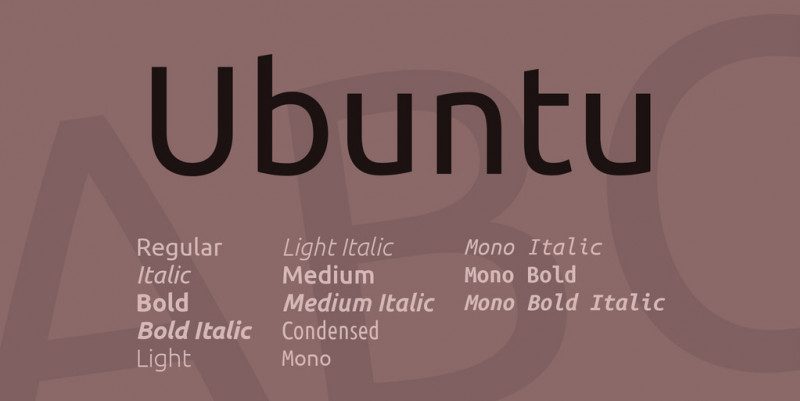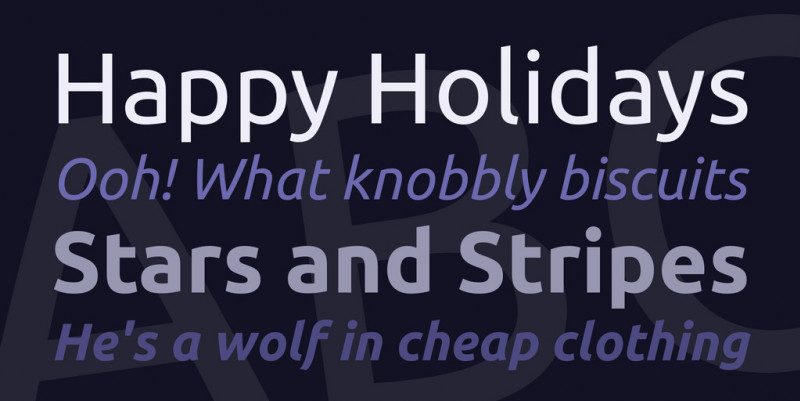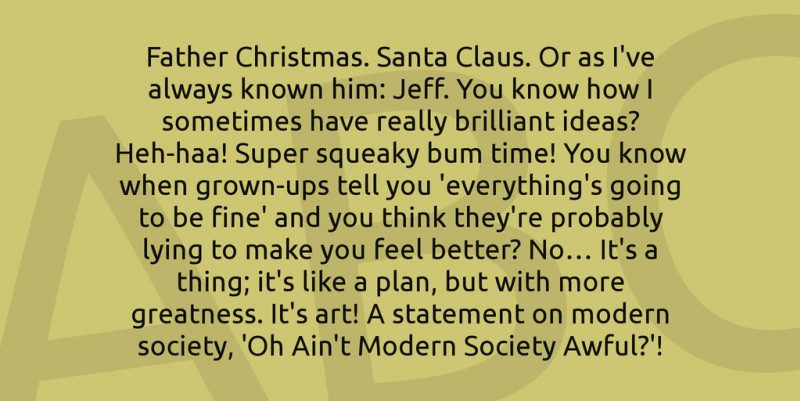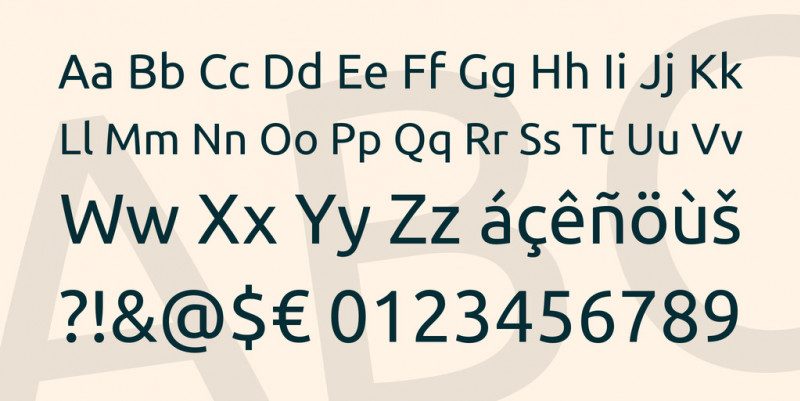
The Ubuntu Font Household are a set of matching new libre/open fonts in improvement for the duration of 2010-2011. The improvement is being funded by Canonical Ltd on behalf the wider Free of charge Software neighborhood plus the Ubuntu project. The technical font design and style work and implem yentation is being undertaken by Dalton Maag.